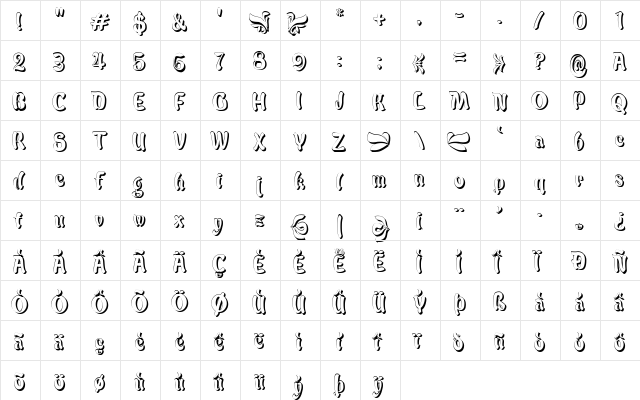
Babalu Shade Regular
Design Context for Babalu Shade Typeface
Babalu Shade is a composed and adaptable typeface that performs quietly and consistently across a wide range of design contexts.